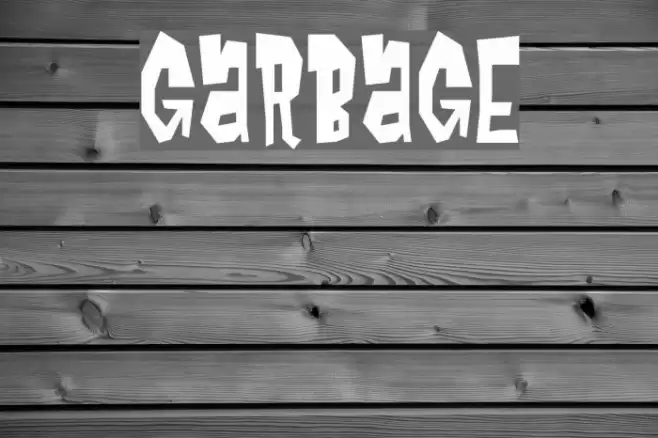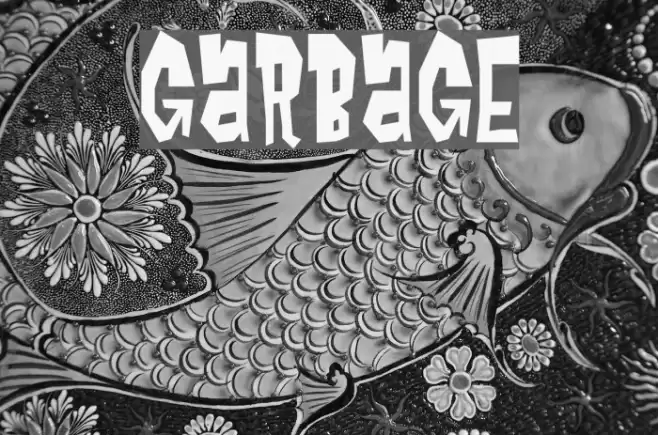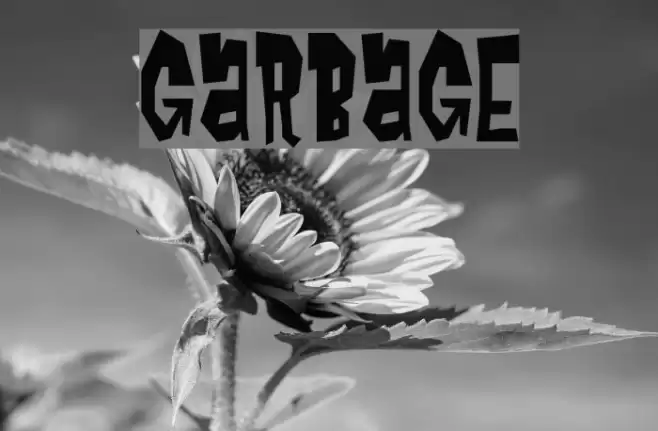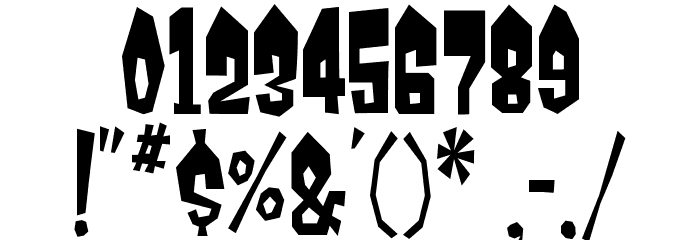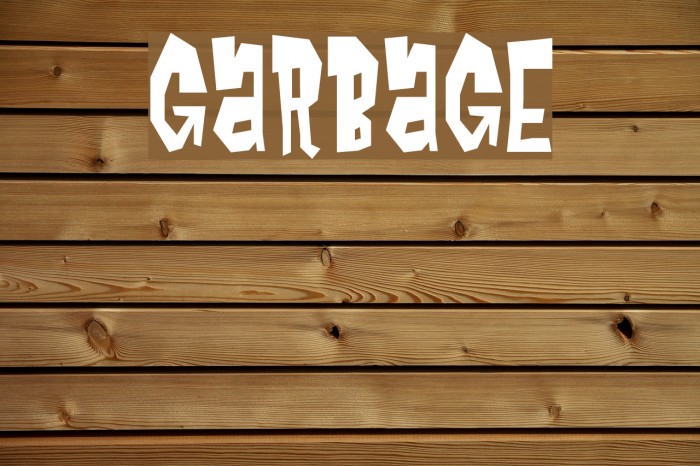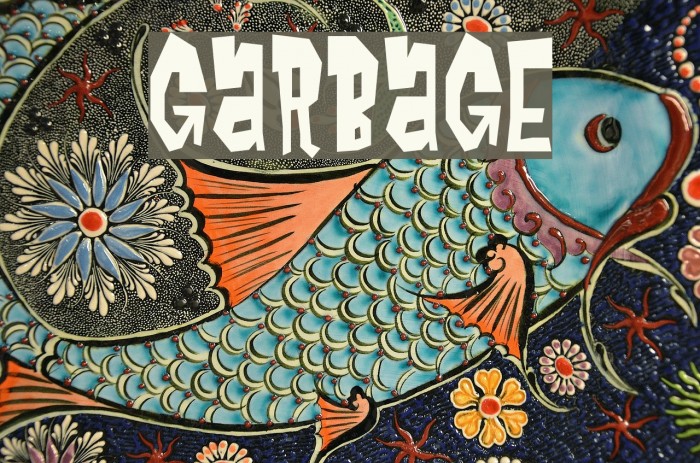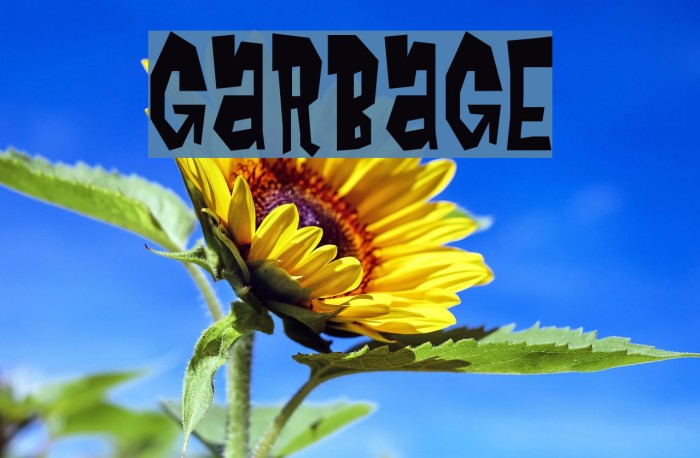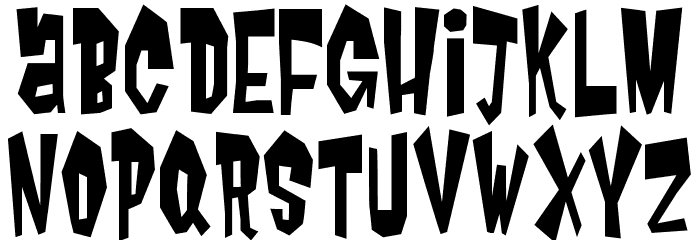
garbage Font
garbage Description
This font features a bold and dynamic style with irregular, jagged edges that give it a unique, edgy appearance. The characters are highly stylized, with varying widths and angles that create a sense of movement and energy. The uppercase and lowercase letters maintain a consistent design theme, while the numbers and special characters complement the overall aesthetic. This font is ideal for projects that require a strong visual impact and a modern, unconventional look.
A bold, edgy font with irregular, jagged edges and dynamic style from Uncategorized fonts.
- Proposed Projects: Ideal for music album covers, posters, graffiti art, and edgy branding projects.
- Overall Style: Modern, Edgy